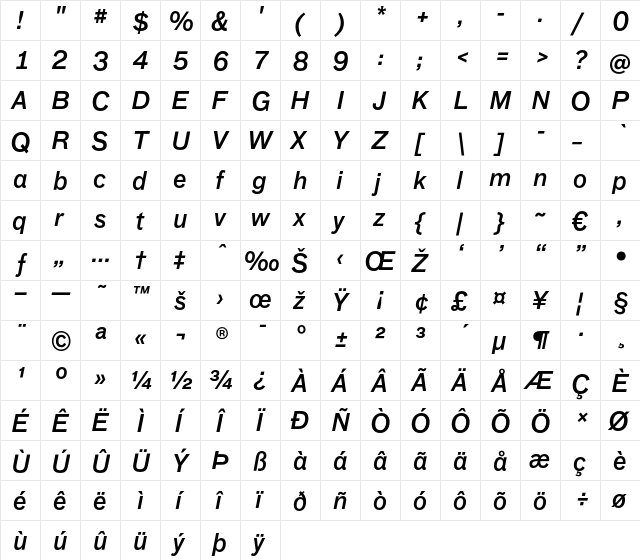
BauTF-MediumItalic Regular Font Preview
BauTF-MediumItalic Regular
BauTF-MediumItalic Regular Font Details
Design Context for BauTF-MediumItalic Typeface
BauTF-MediumItalic is a composed and adaptable typeface that performs quietly and consistently across a wide range of design contexts. The slanted form adds forward momentum and visual energy.
Pro Tip: Use BauTF-MediumItalic for emphasis, pull quotes, and subheadings where its slanted energy can add rhythm to the layout.